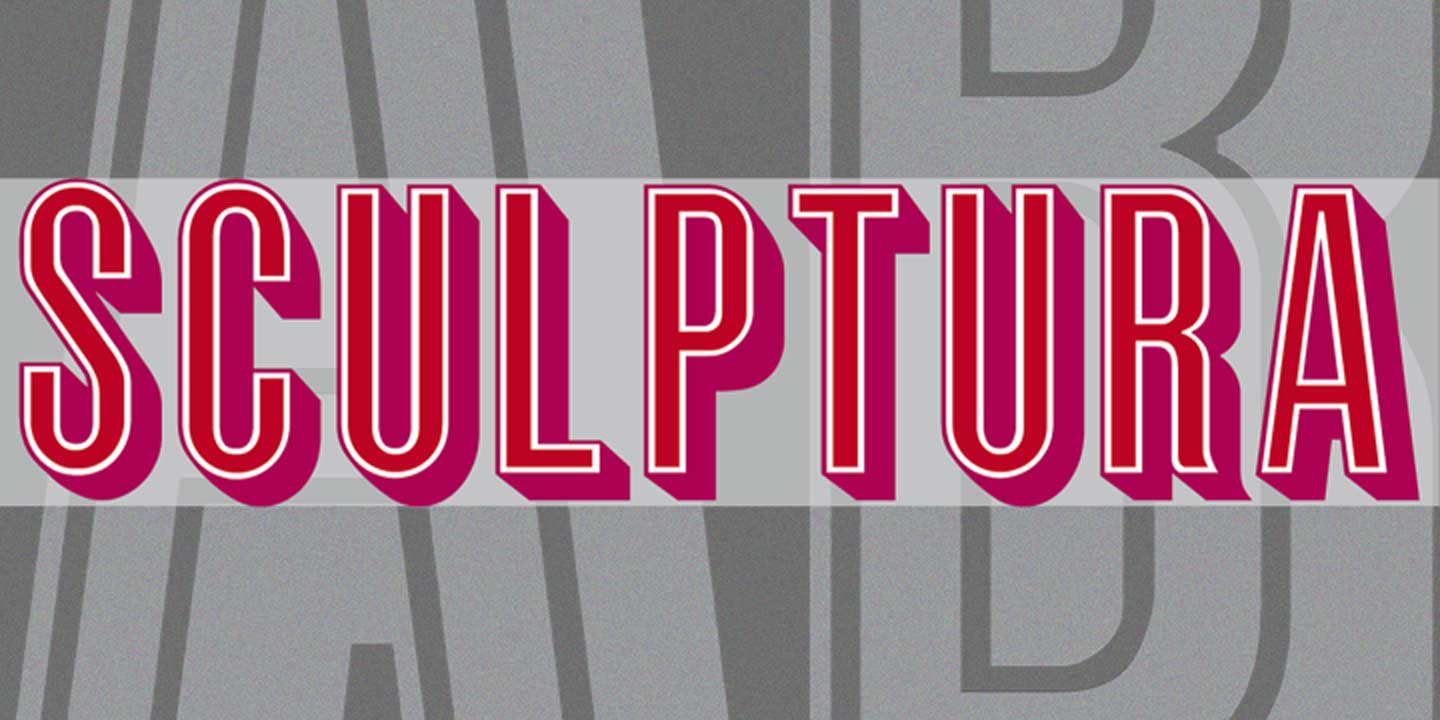
Sculptura
Sculptura CT is a wonderful, very condensed, 3D font commissioned by Christopher Irving at [I Think Studios]. This CastleType revival is very clean-cut and contains uppercase only, numerals, punctuation. Sculptura was originally designed by the Swiss designer, Walter J. Diethelm (1913-1986) in 1957. Click on the Glyph Chart link at right to view all glyphs.